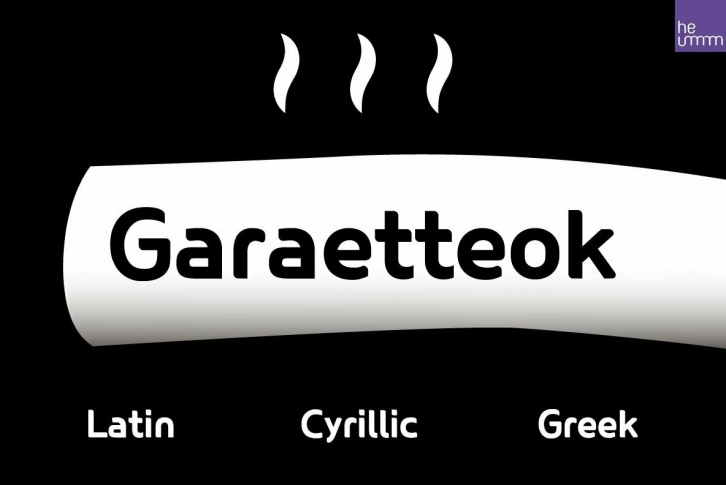
HU Garaetteok is a cute headline typeface that expresses a straight stroke and end in a round shape. The characteristics of the writing were added with straight strokes and lively curves.